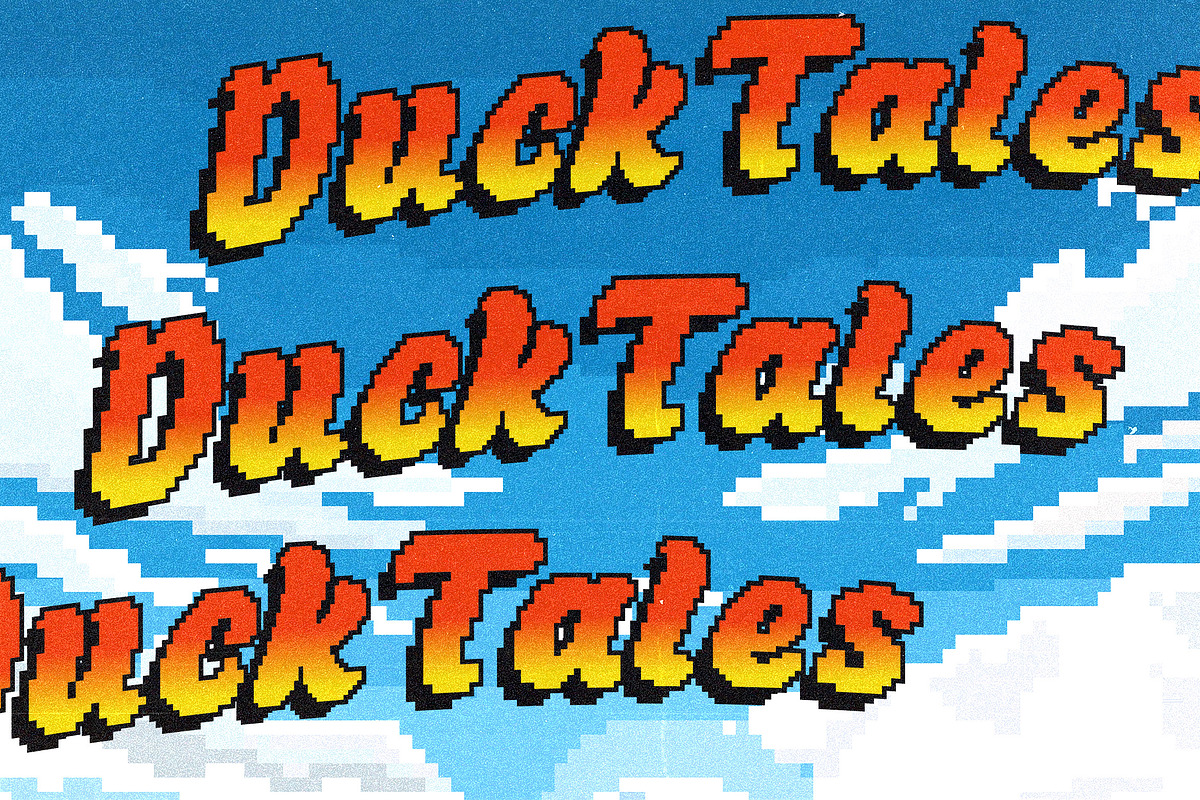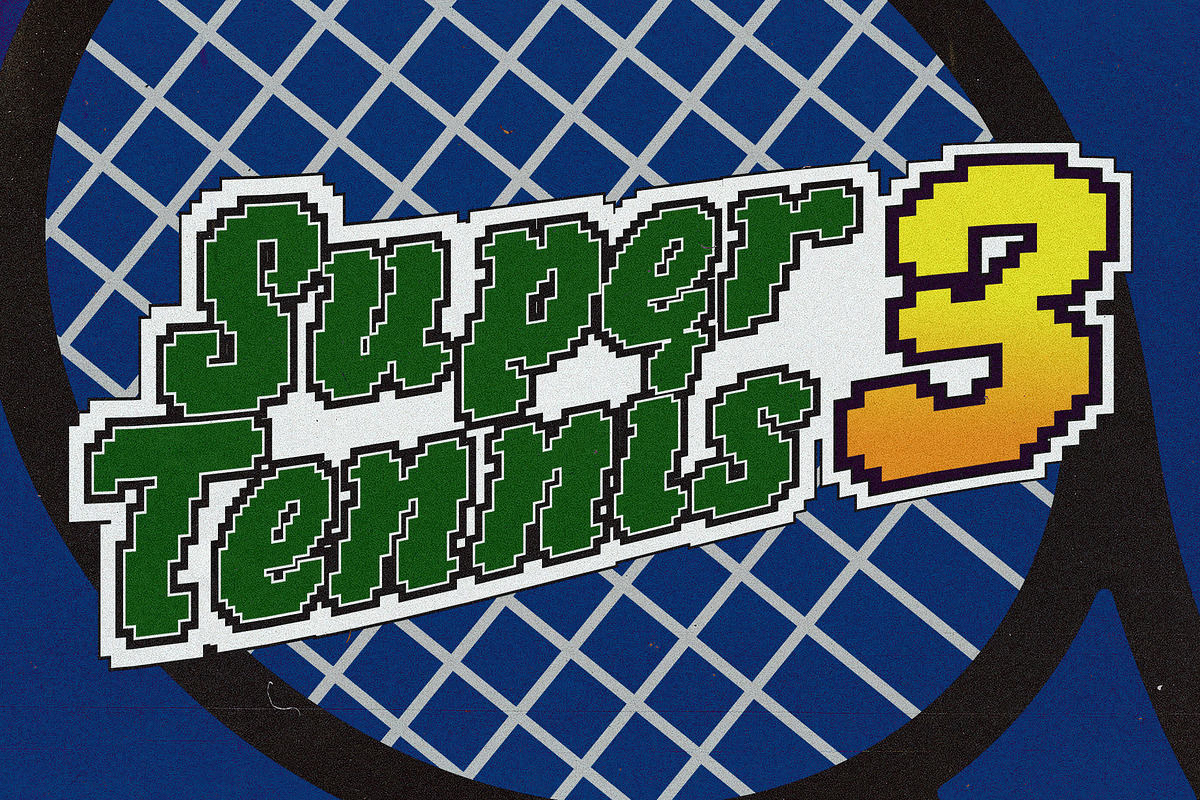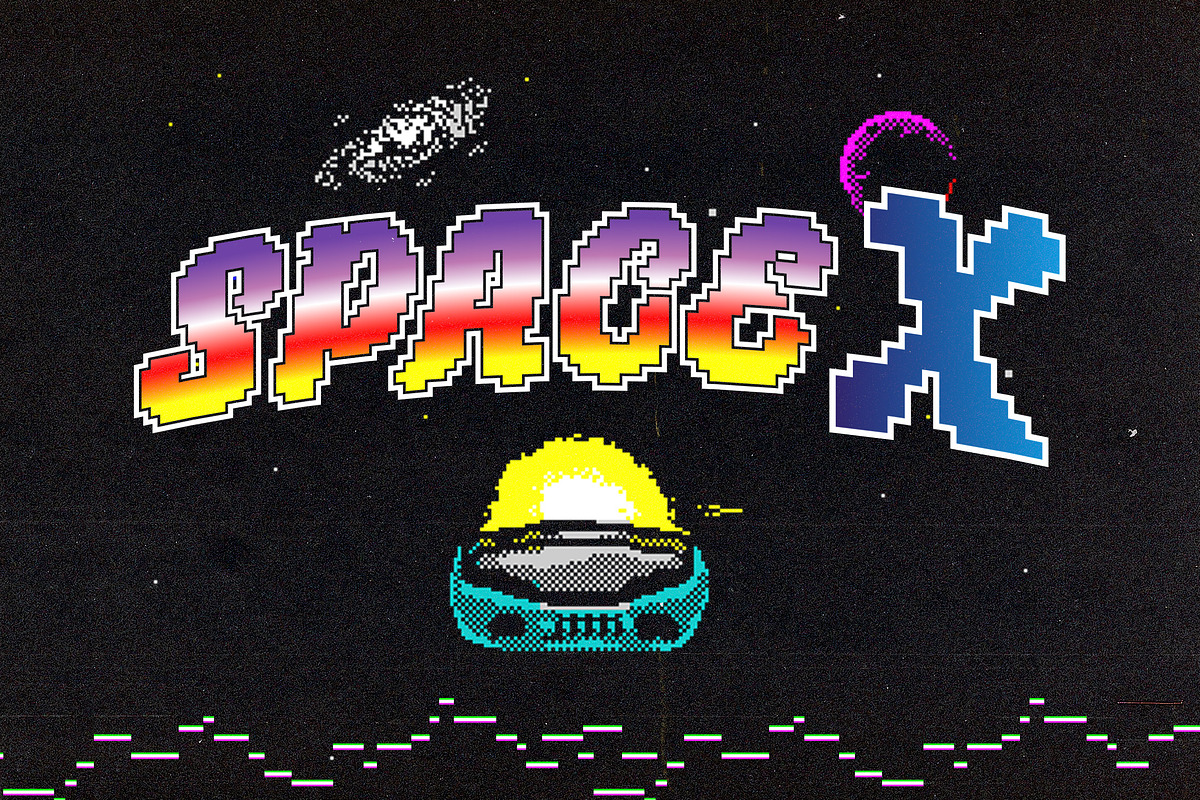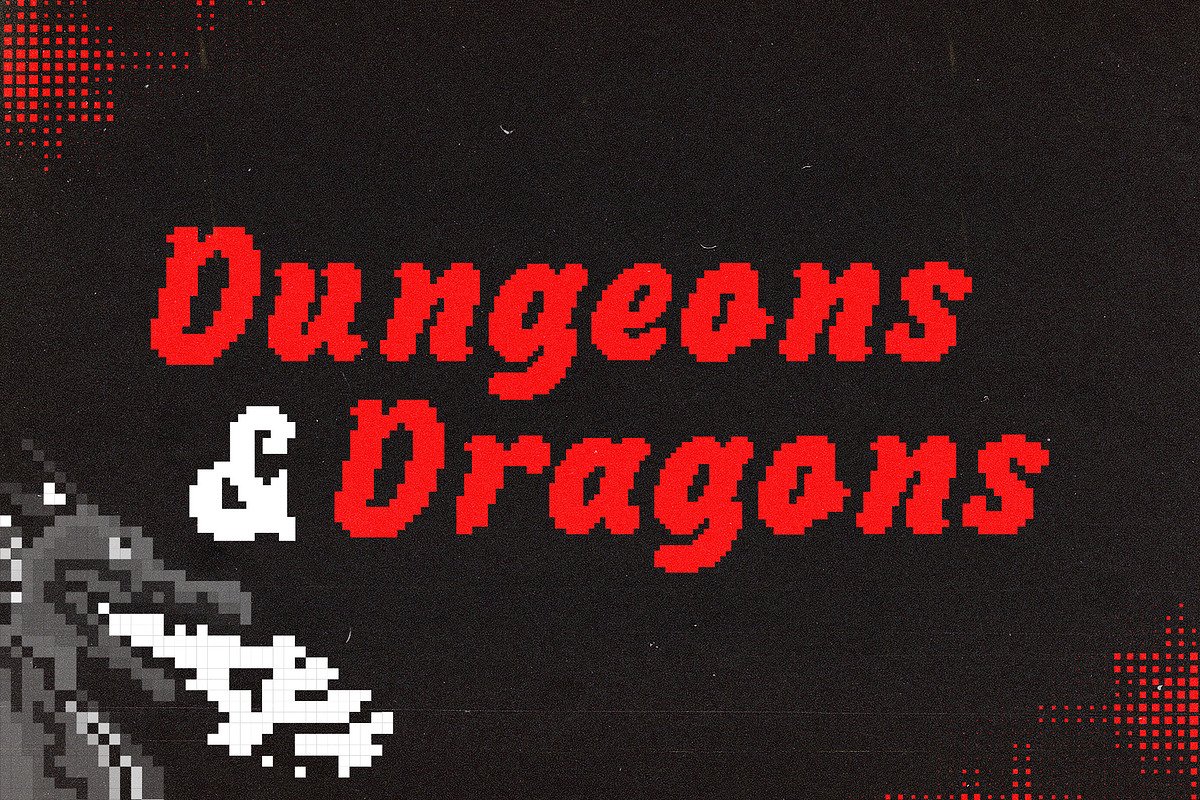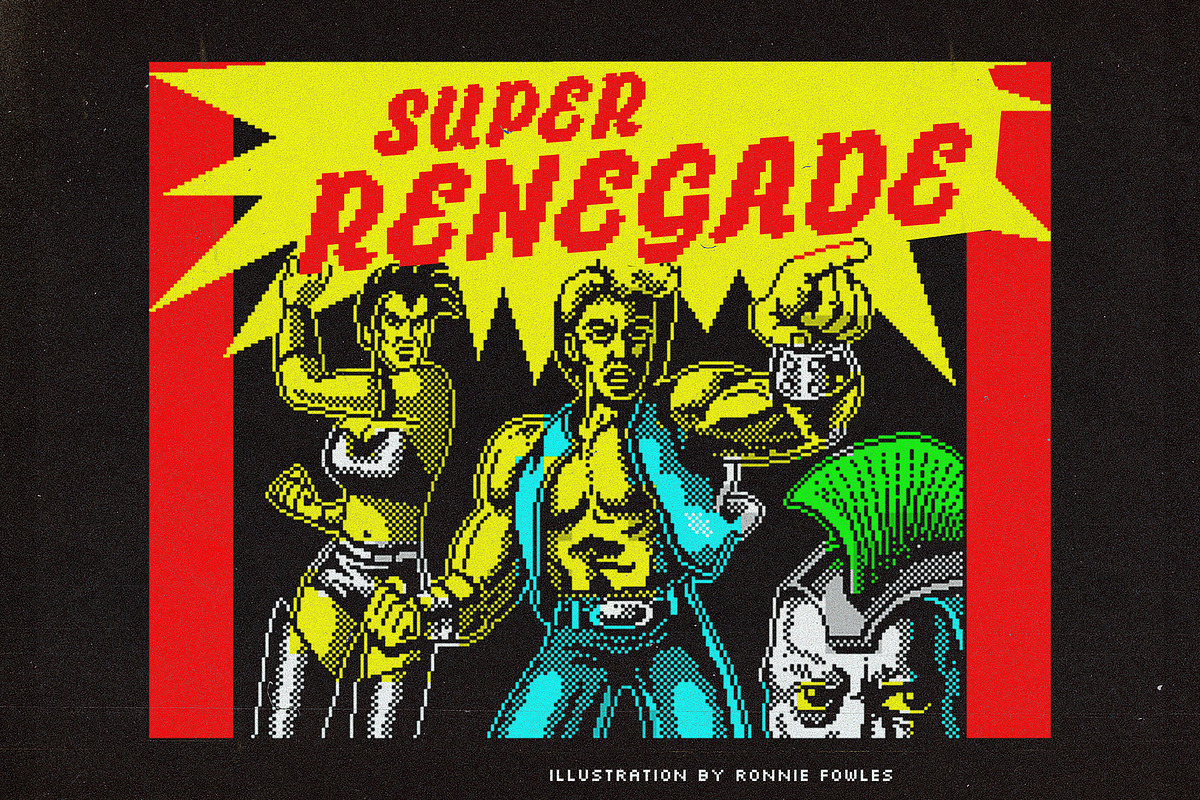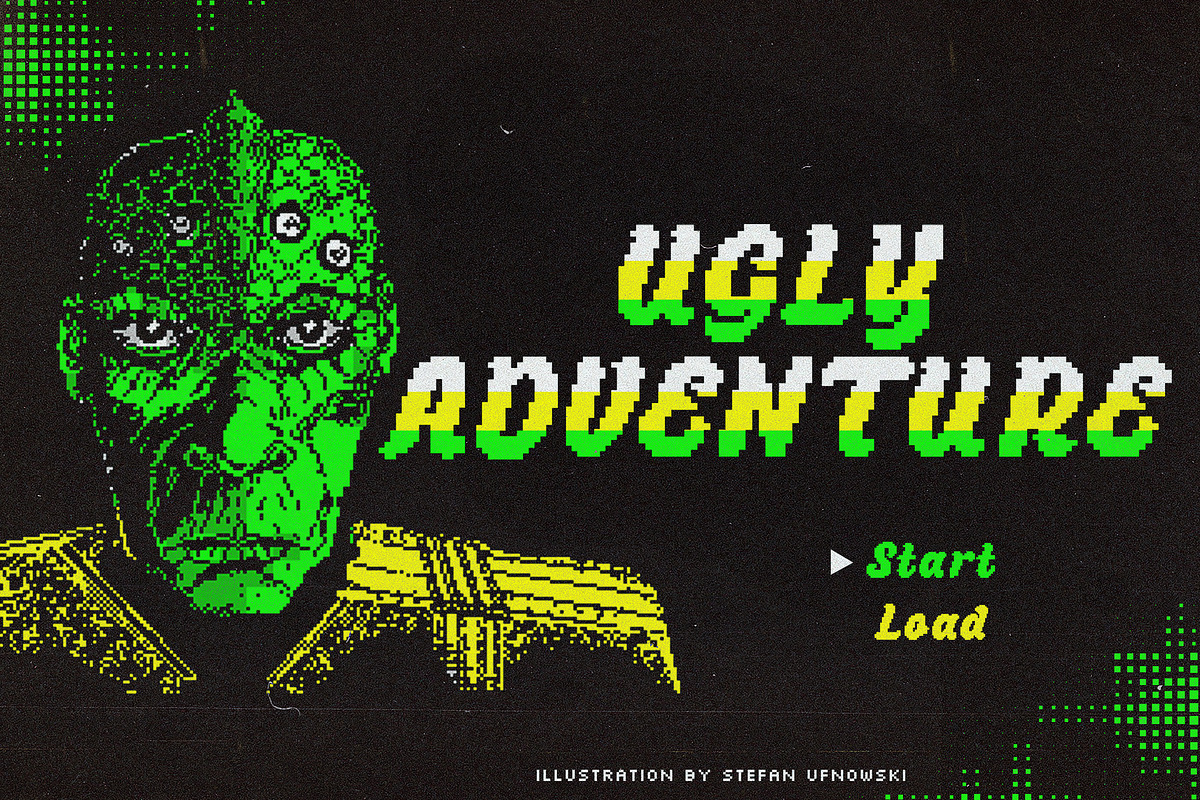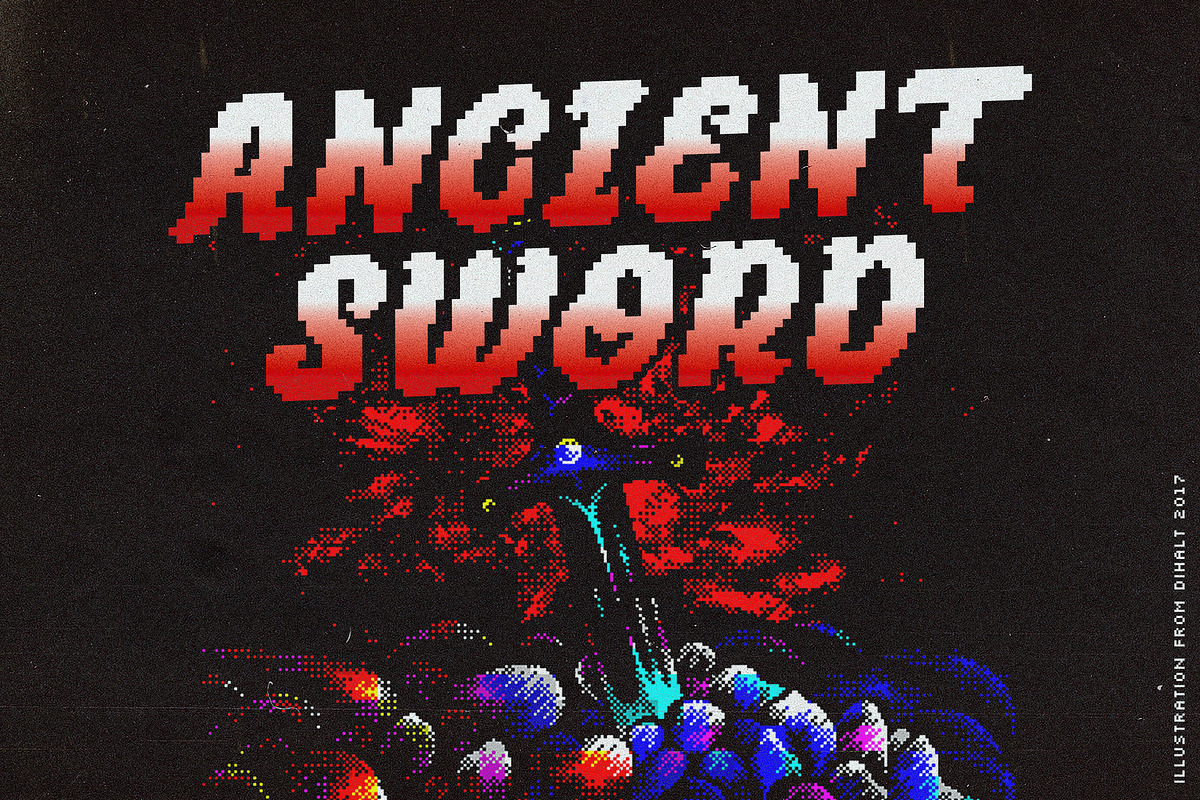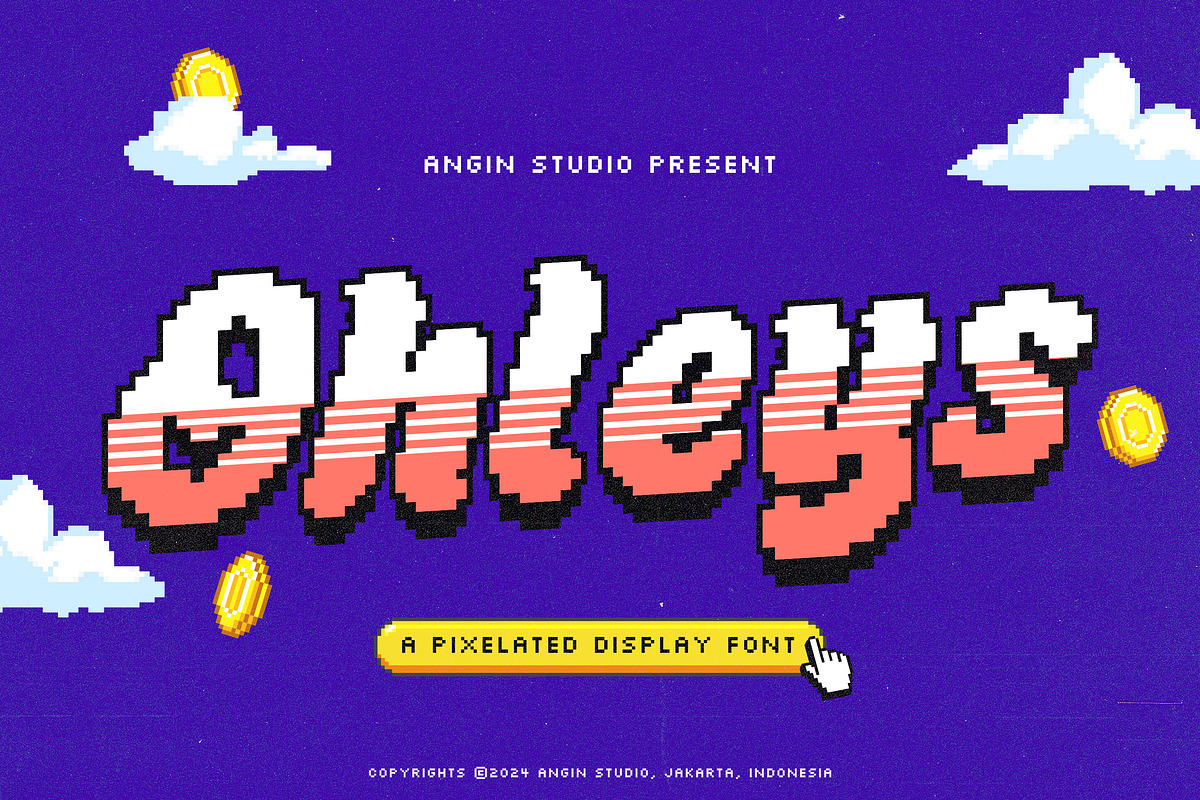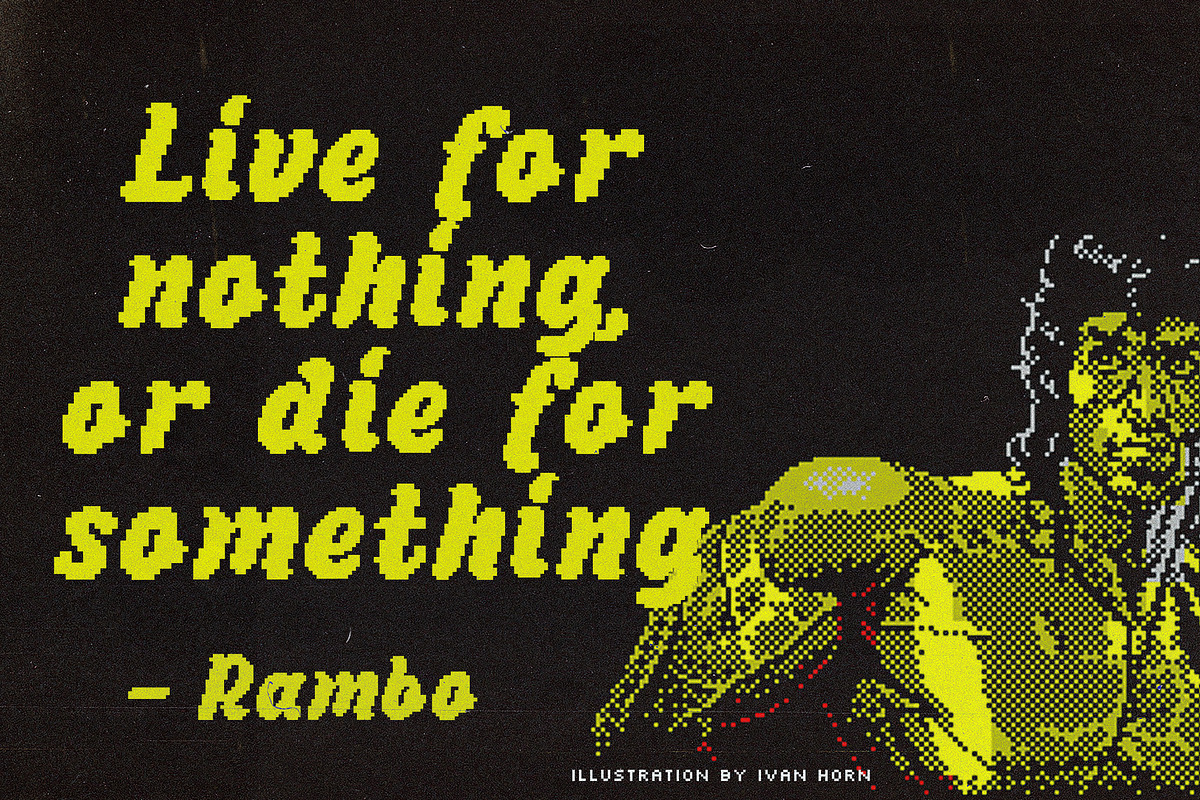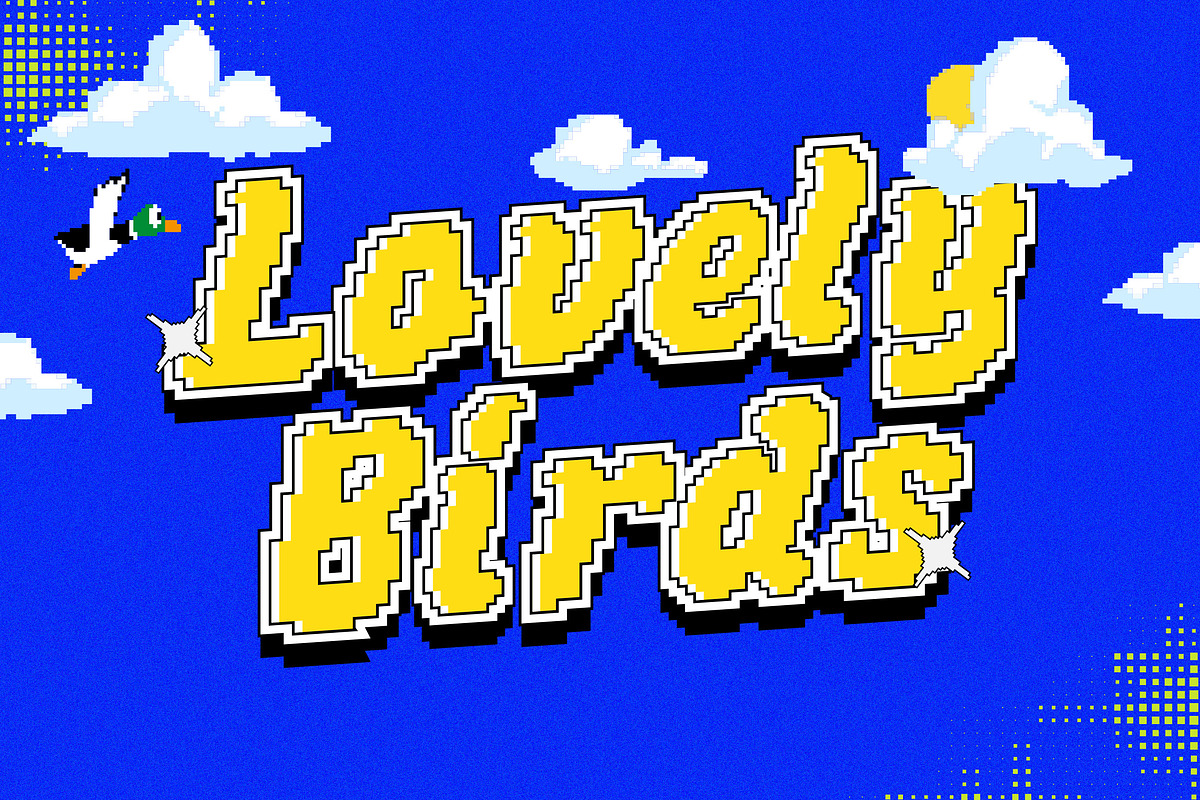
Ohleys Pixelated Font
Our Introducing step into the world of pixel perfection with Ohleys Pixelated, a bold and playful pixelated display font designed to bring back the charm of 8-bit / retro game nostalgia. Perfect for gaming projects, retro posters, and fun, creative designs, Ohleys Pixelated a punch with its vibrant colors and pixel artistry.